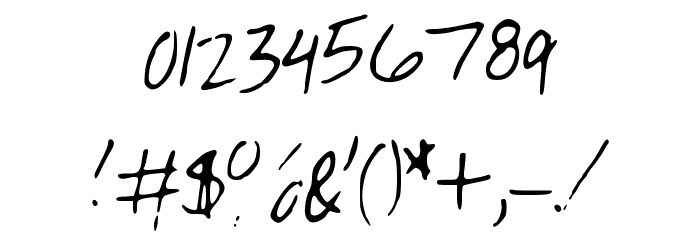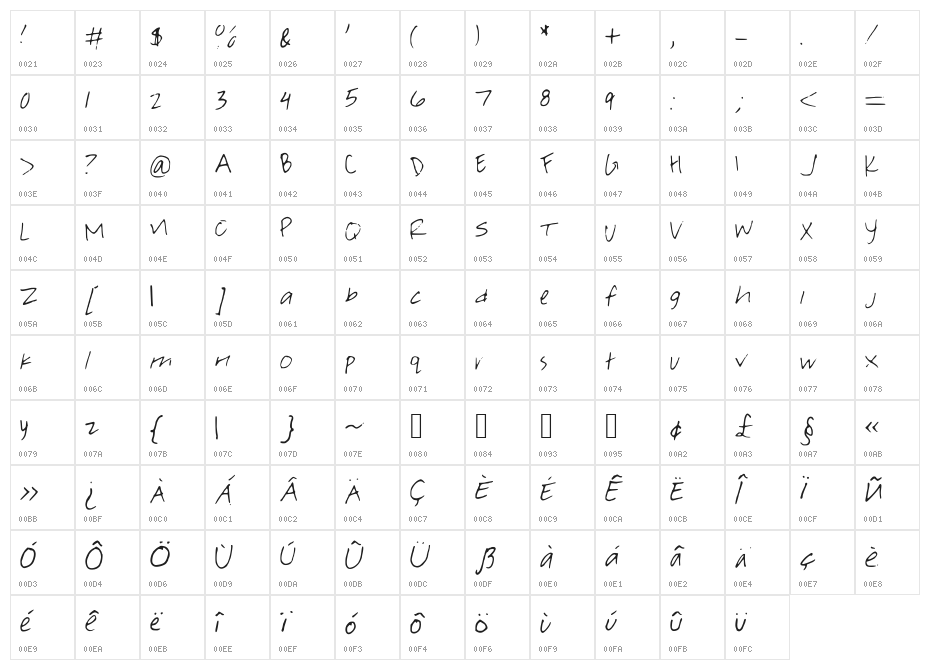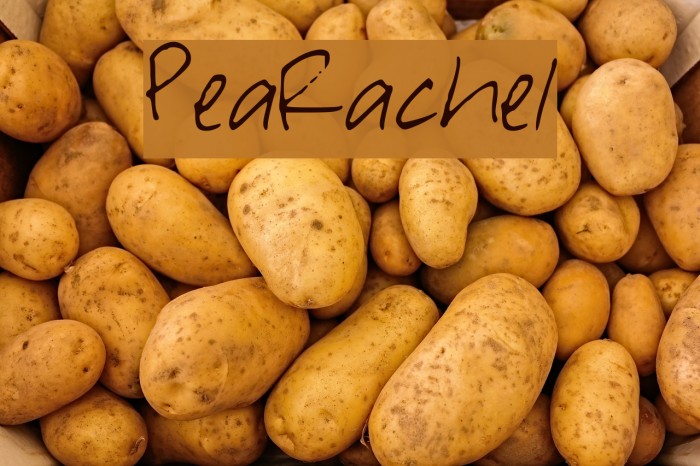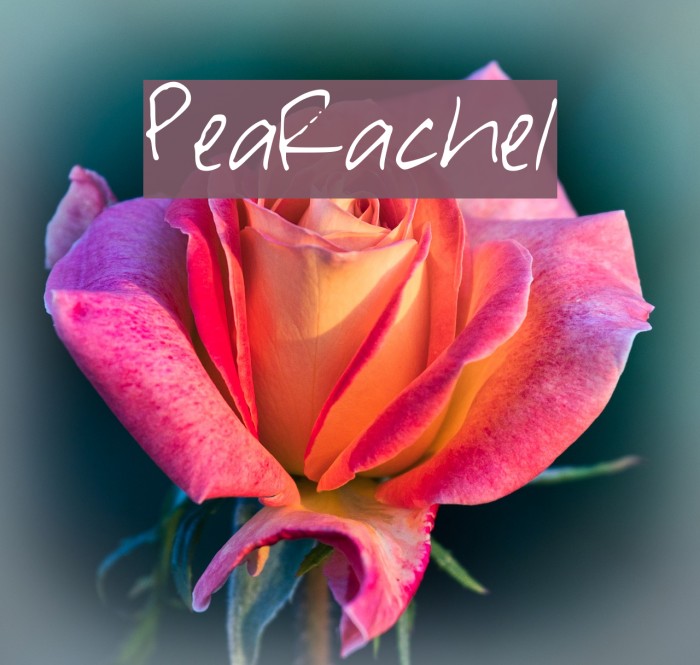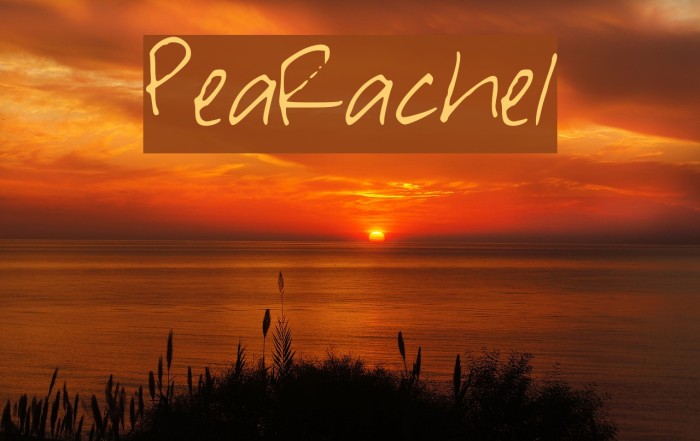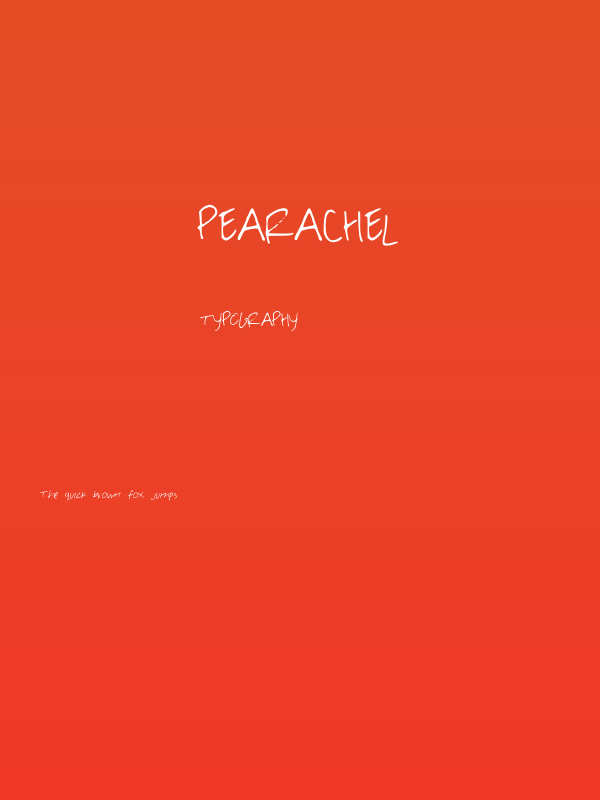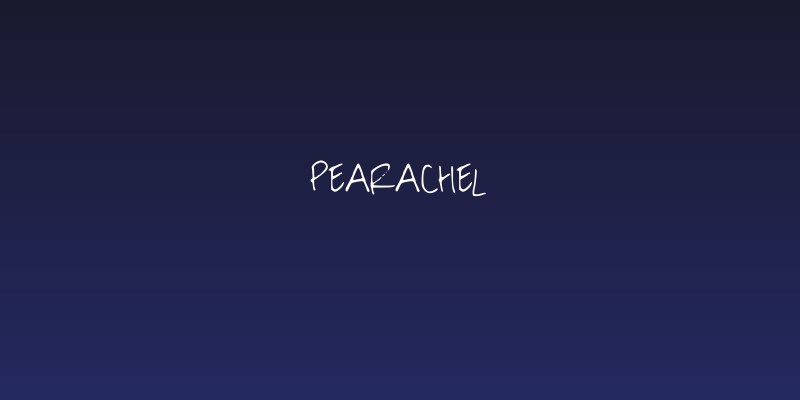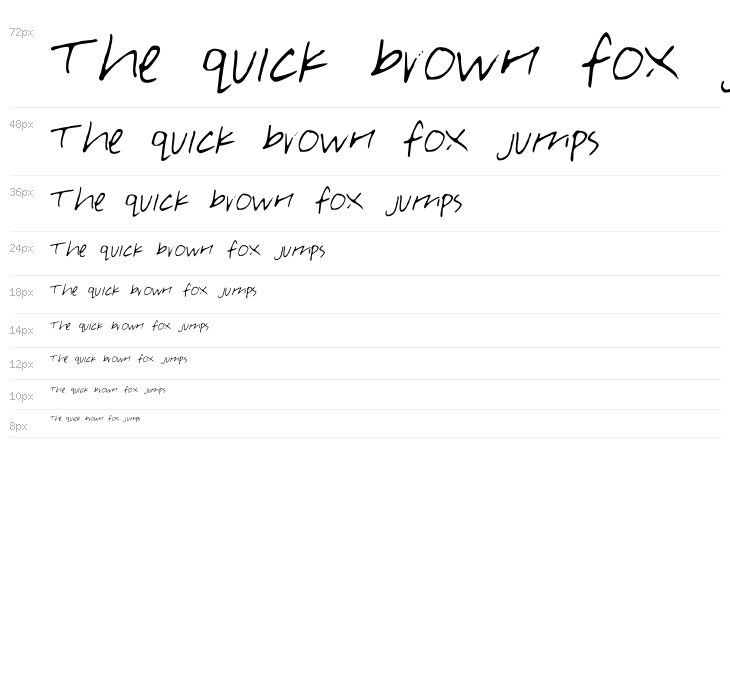
PeaRachel Font
PeaRachel Description
This font exudes a casual, handwritten style, characterized by its fluid and organic strokes. The letters are slightly slanted, giving a dynamic and lively feel. The uppercase letters maintain a consistent height, while the lowercase letters vary slightly in size, adding to the informal aesthetic. The numbers and special characters follow the same handwritten theme, with playful curves and angles. The overall appearance is approachable and friendly, making it suitable for projects that require a personal touch.
| Use Case | Logos, Headlines, Informal text |
| Proposed Projects | Ideal for personal invitations, greeting cards, casual branding, and social media graphics. |